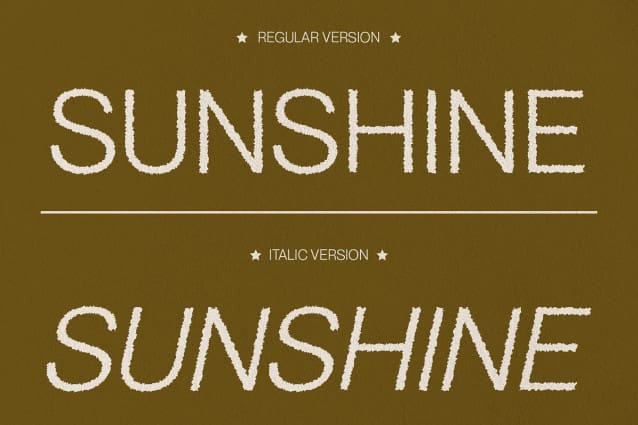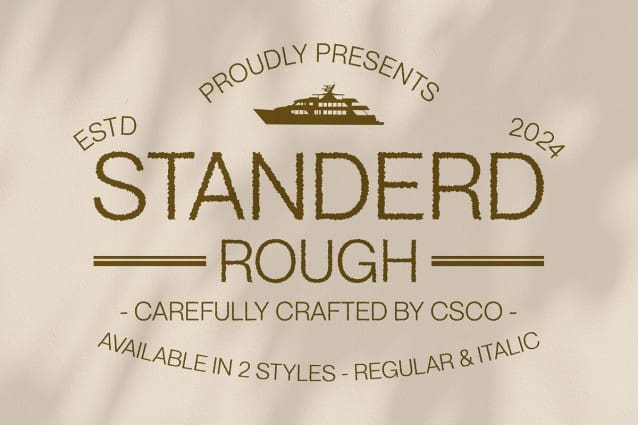
Standerd Rough Font
Standerd Rough Font is a modern sans-serif font with a grotesque form that combines bold, clean lines with an industrial, utilitarian feel. The font’s simple, minimal ornamentation delivers a powerful and contemporary look, making it a striking choice for modern designs.
Textured Rough Effect for a Rugged Contrast The addition of a rough effect introduces a textured, uneven quality to Standerd Rough, creating an intriguing contrast with its clean geometric design. This rugged texture adds depth and character, giving the font a daring, organic edge that enhances its bold appearance.
Merging Contemporary Simplicity with Edgy Texture Standerd Rough successfully blends modern simplicity with a rugged, textured touch. The combination of grotesque shapes and the rough effect results in a font that is both contemporary and edgy, ideal for projects that require a strong, impactful presence.
Perfect for Bold and Striking Designs This font is well-suited for posters, branding, and promotional materials that aim to make a bold statement. Standerd Rough’s dynamic design captures attention with its powerful and rugged character, perfect for highlighting a strong and contemporary personality.